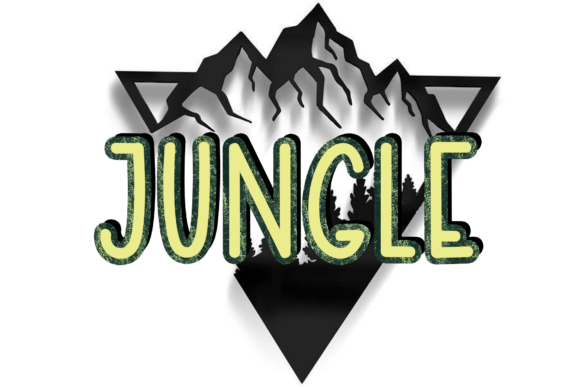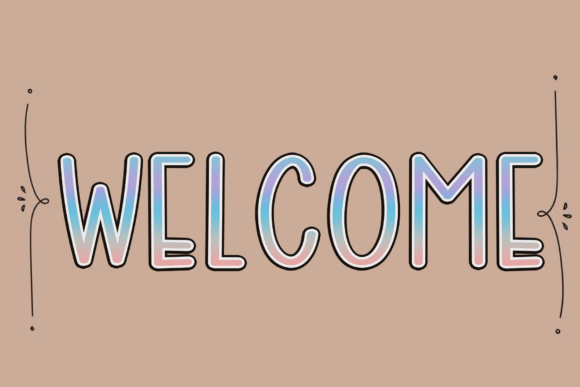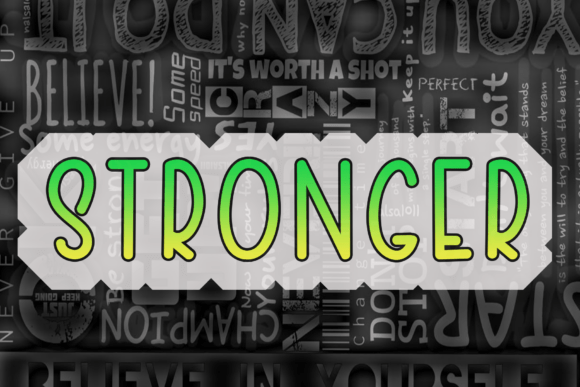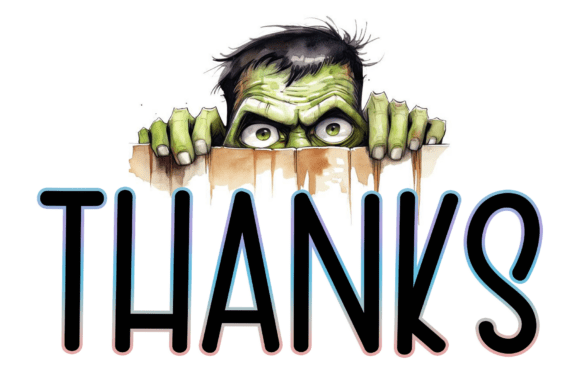
The Magical World of Typography: Exploring the Harry Potter Font
For fans of J.K. Rowling’s beloved book series, the Harry Potter font is more than just a typography style – it’s a gateway to a magical world of wonder and enchantment. This vibrant and clean take on the classic “Harry Potter” style blends nostalgia with a contemporary twist, making it perfect for modern branding, editorial headlines, and pop culture-inspired projects that call for a magical yet professional vibe.
A Brief History of the Harry Potter Font
The original Harry Potter font, also known as the “Harry Potter” or “Potter” font, was designed by Peter Knight, a British typographer, in the late 1990s. The font was commissioned by Bloomsbury Publishing, the publisher of the Harry Potter book series, for use on the book covers and marketing materials. The font’s unique design, featuring tall, narrow letterforms with a bold gradient and subtle shadowing, was intended to evoke the sense of magic and wonder that pervades the series.
The Evolution of the Harry Potter Font
Over the years, the Harry Potter font has undergone several transformations, with various designers and typographers creating their own interpretations of the iconic style. However, the core elements of the font have remained the same – the tall, narrow letterforms, the bold gradient, and the subtle shadowing. These distinctive features have become synonymous with the Harry Potter brand and are instantly recognizable to fans around the world.
What Makes the Harry Potter Font So Special?
So, what makes the Harry Potter font so special? Here are a few reasons why designers and crafters love this magical font:
- Nostalgia: The Harry Potter font is a nostalgic nod to the beloved book series, evoking memories of late-night reading sessions, Hogwarts School of Witchcraft and Wizardry, and the magical world of Harry Potter.
- Versatility: The font’s clean and modern design makes it perfect for a wide range of applications, from branding and editorial headlines to packaging and merchandise.
- Magical yet Professional: The Harry Potter font strikes the perfect balance between magic and professionalism, making it ideal for projects that require a touch of whimsy and wonder.
Using the Harry Potter Font in Modern Design
The Harry Potter font is a versatile typography style that can be used in a variety of modern design applications. Here are a few ideas to get you started:
- Branding: Use the Harry Potter font to create a magical brand identity for your business or product. Perfect for companies that want to evoke a sense of wonder and enchantment.
- Editorial Headlines: Add a touch of magic to your editorial headlines with the Harry Potter font. Perfect for publications that focus on pop culture, entertainment, and lifestyle.
- Packaging and Merchandise: Use the Harry Potter font to create eye-catching packaging and merchandise for your products. Perfect for companies that want to add a touch of whimsy and wonder to their products.
Tips and Tricks for Working with the Harry Potter Font
Here are a few tips and tricks to keep in mind when working with the Harry Potter font:
- Use it sparingly: The Harry Potter font is a bold and attention-grabbing typography style. Use it sparingly to avoid overwhelming your design.
- Experiment with colors: The Harry Potter font looks great in a variety of colors. Experiment with different color schemes to find the perfect combination for your design.
- Pair it with other fonts: The Harry Potter font pairs well with other fonts. Experiment with different font combinations to find the perfect pairing for your design.
The Harry Potter font is a magical typography style that blends nostalgia with a contemporary twist. With its tall, narrow letterforms, bold gradient, and subtle shadowing, this font is perfect for modern branding, editorial headlines, and pop culture-inspired projects that call for a magical yet professional vibe. Whether you’re a designer, crafter, or simply a fan of the Harry Potter series, this font is sure to cast a spell of wonder and enchantment on your audience.